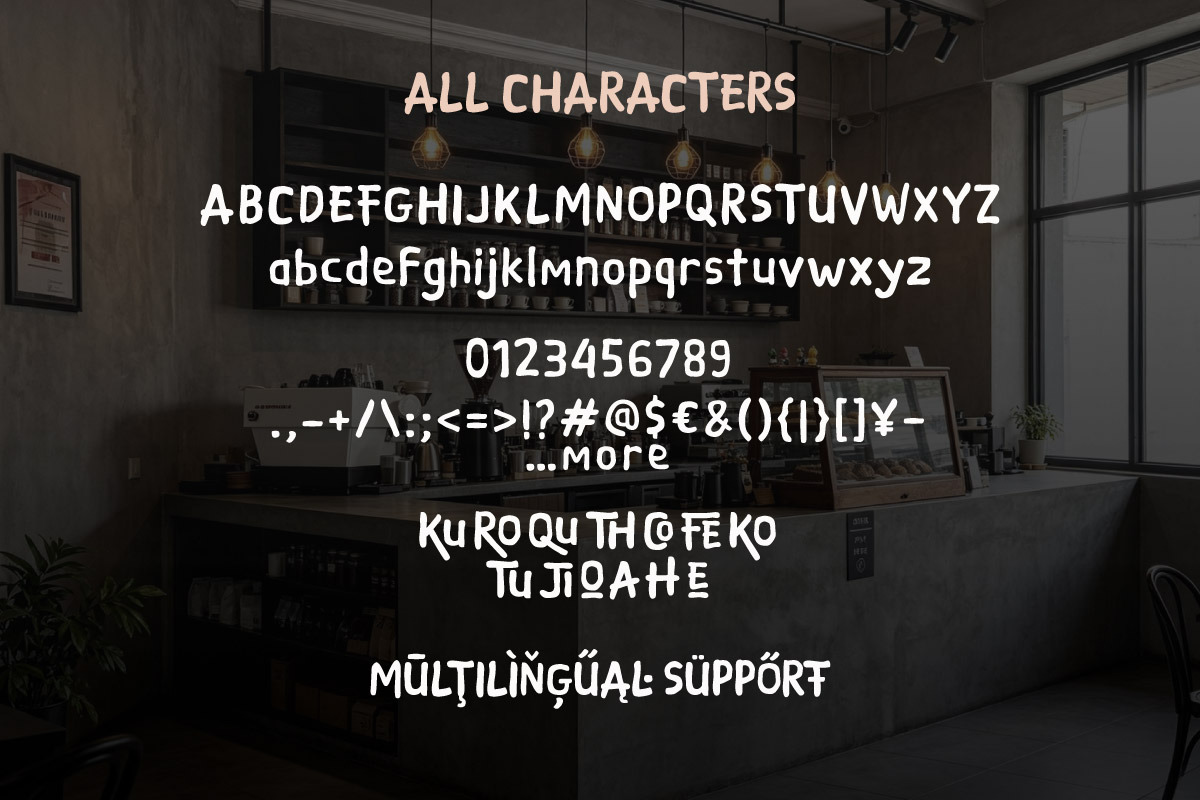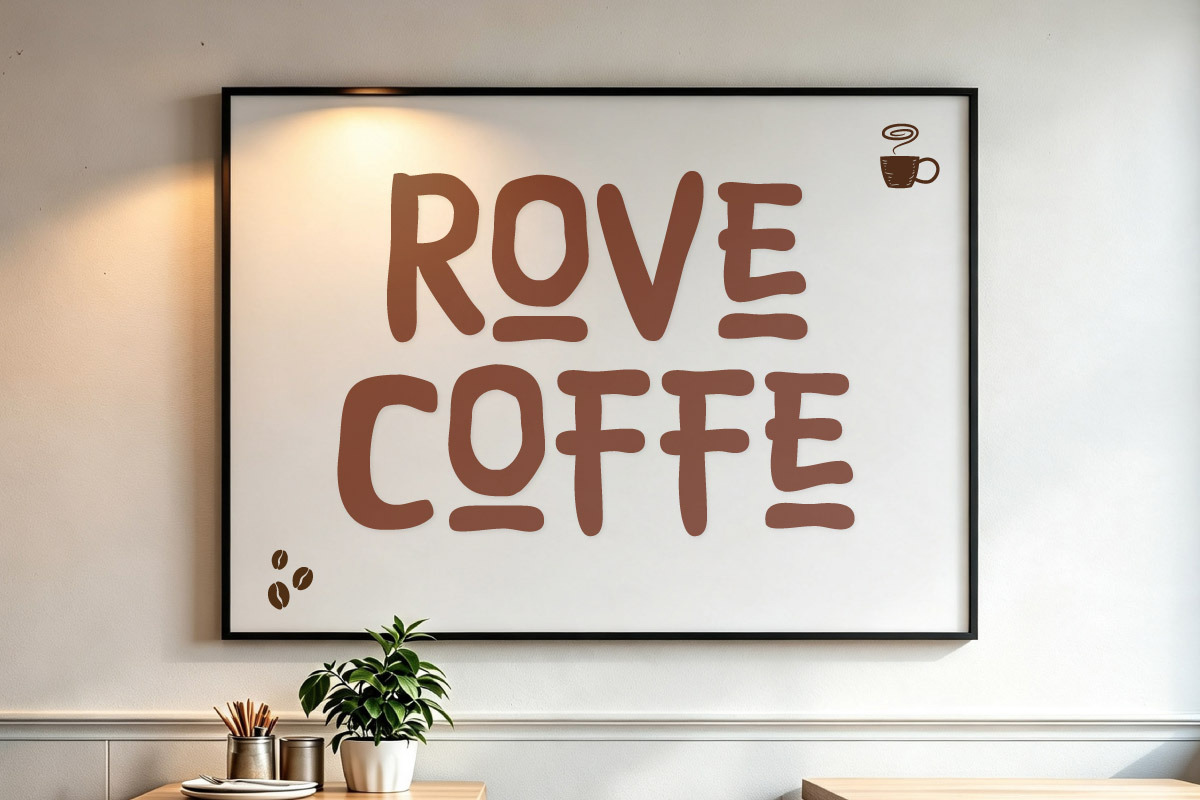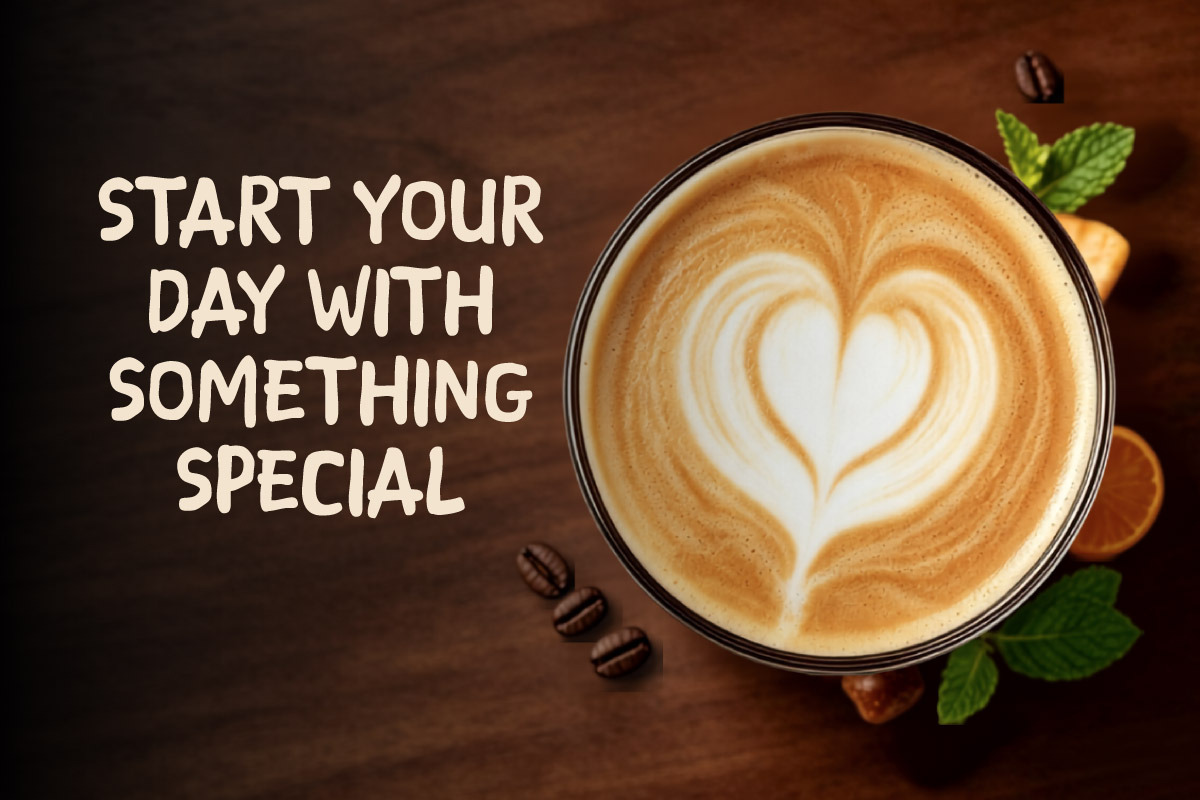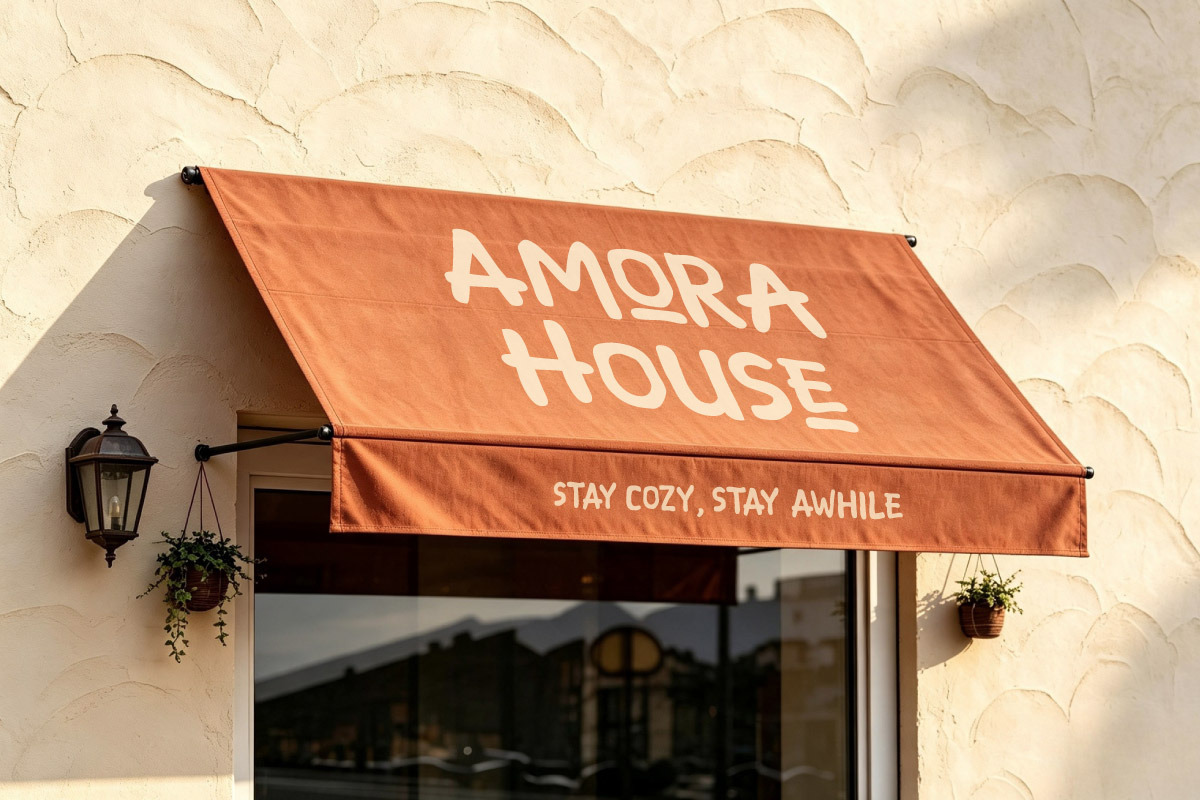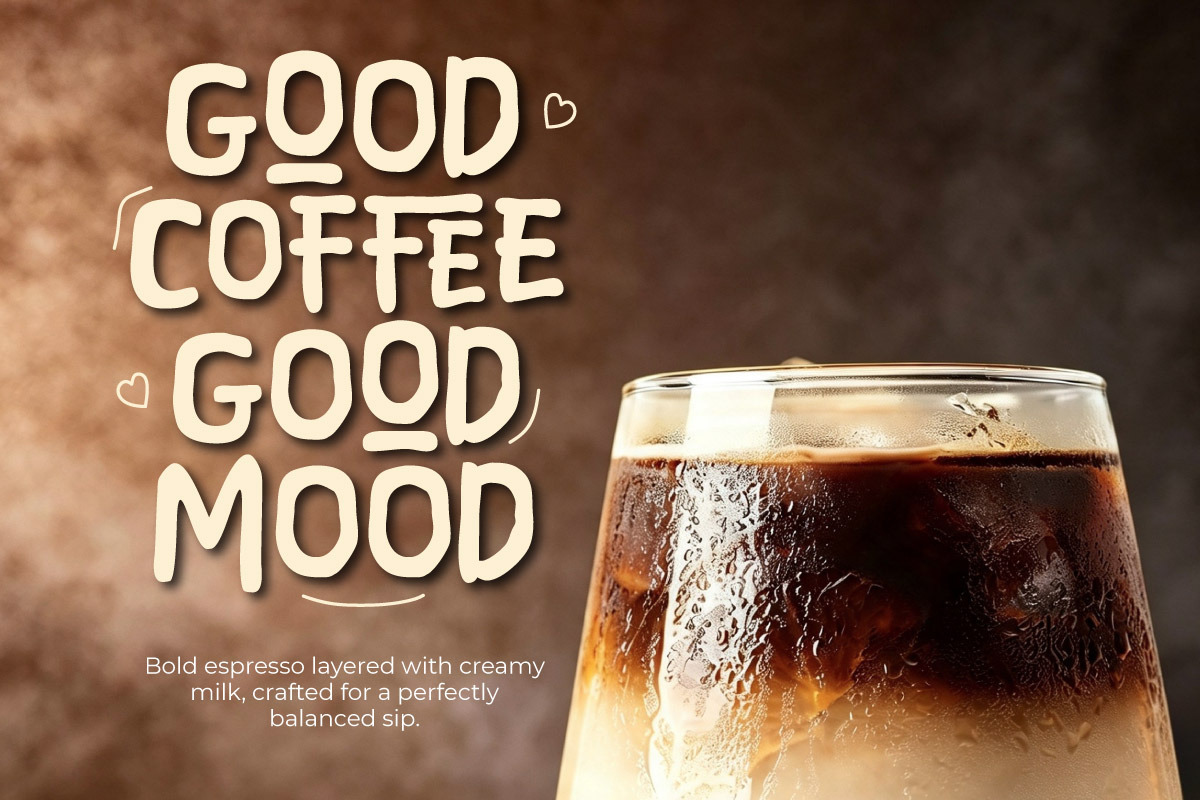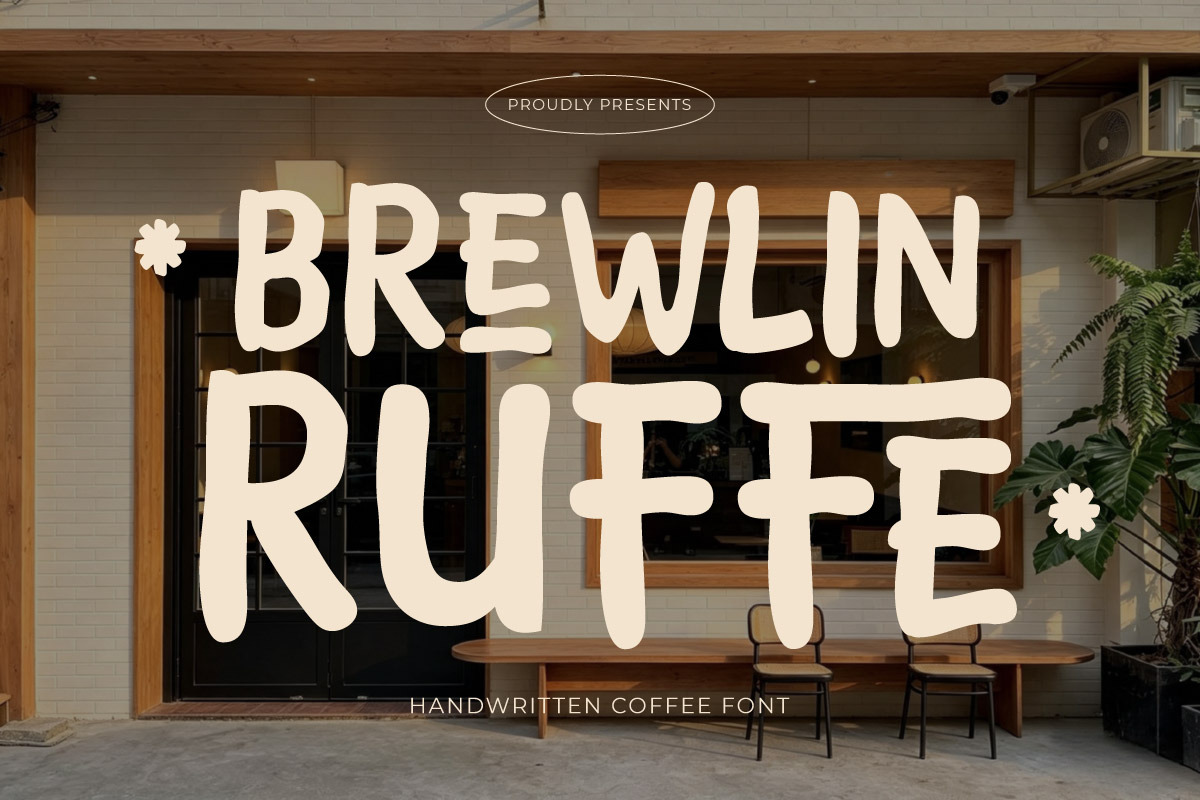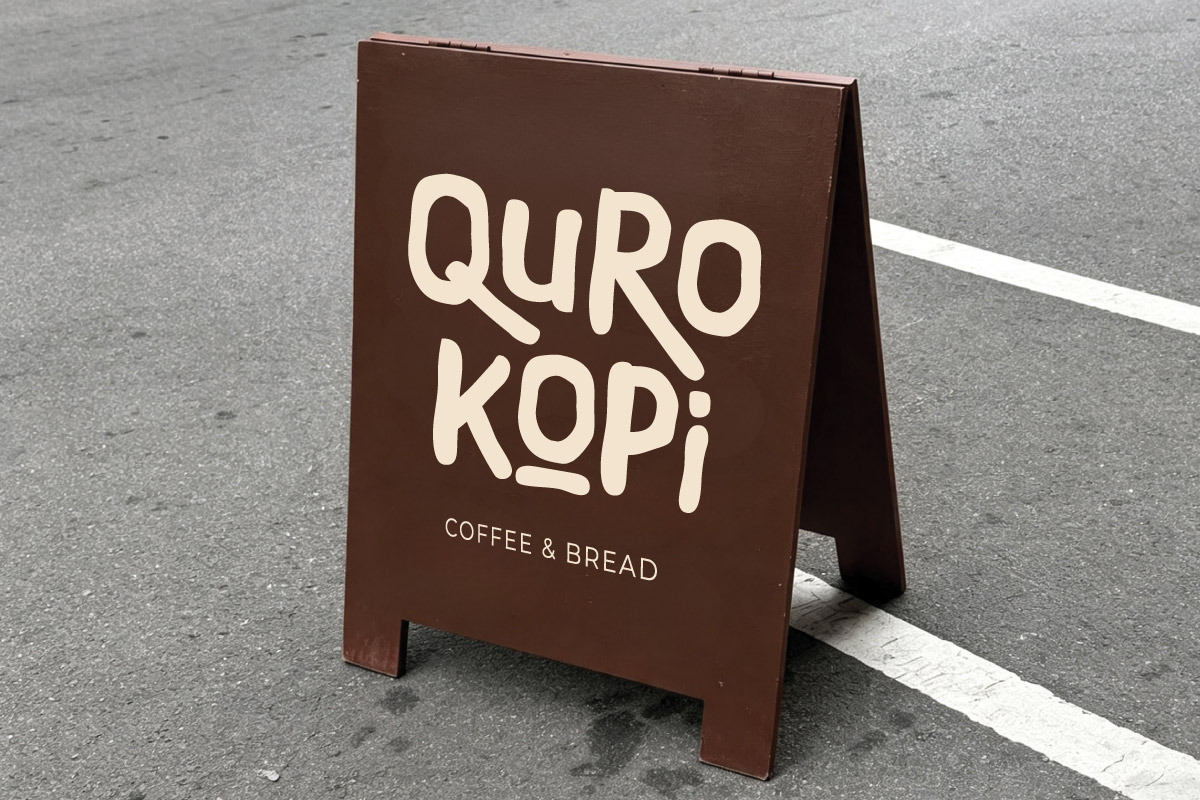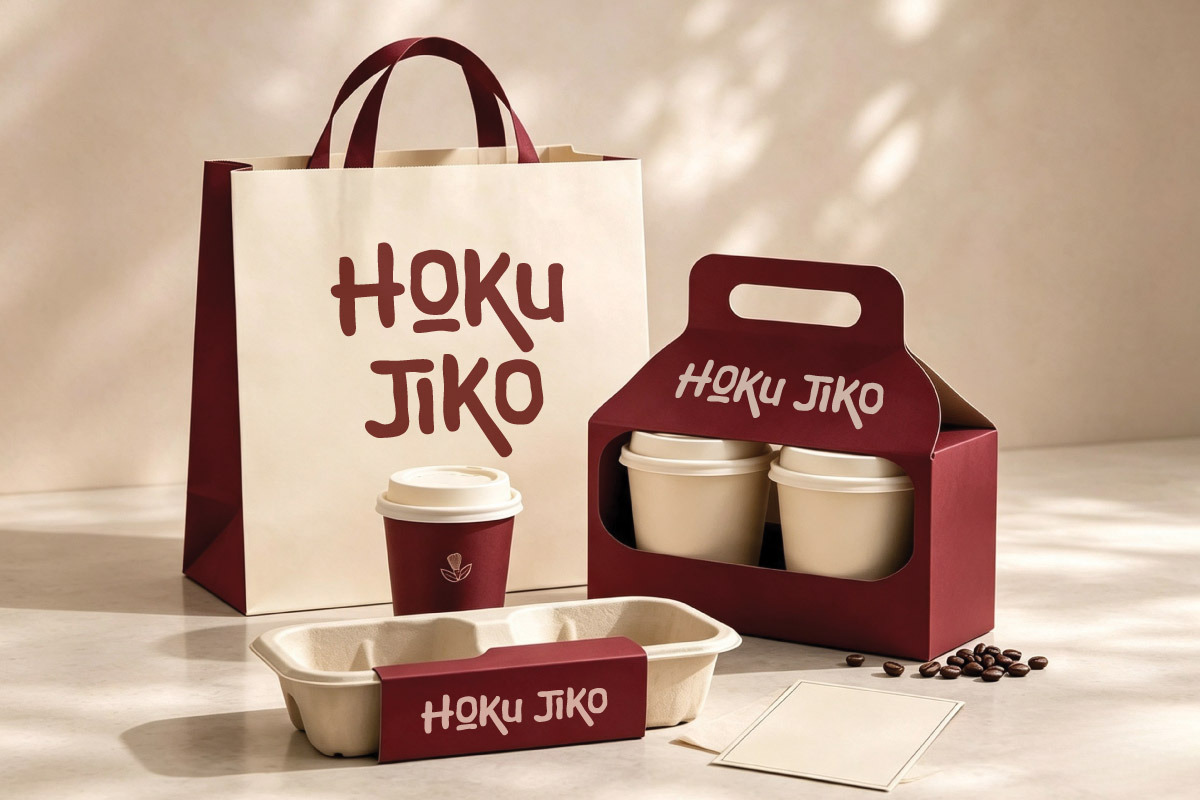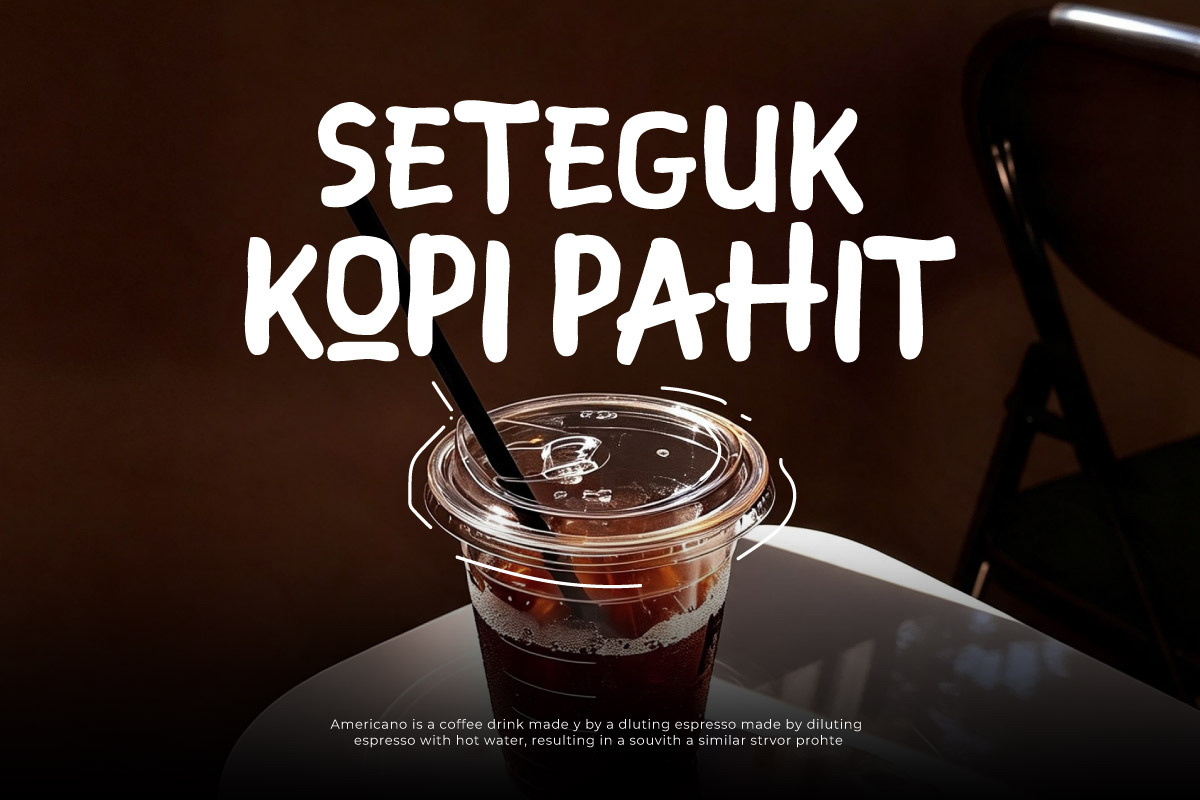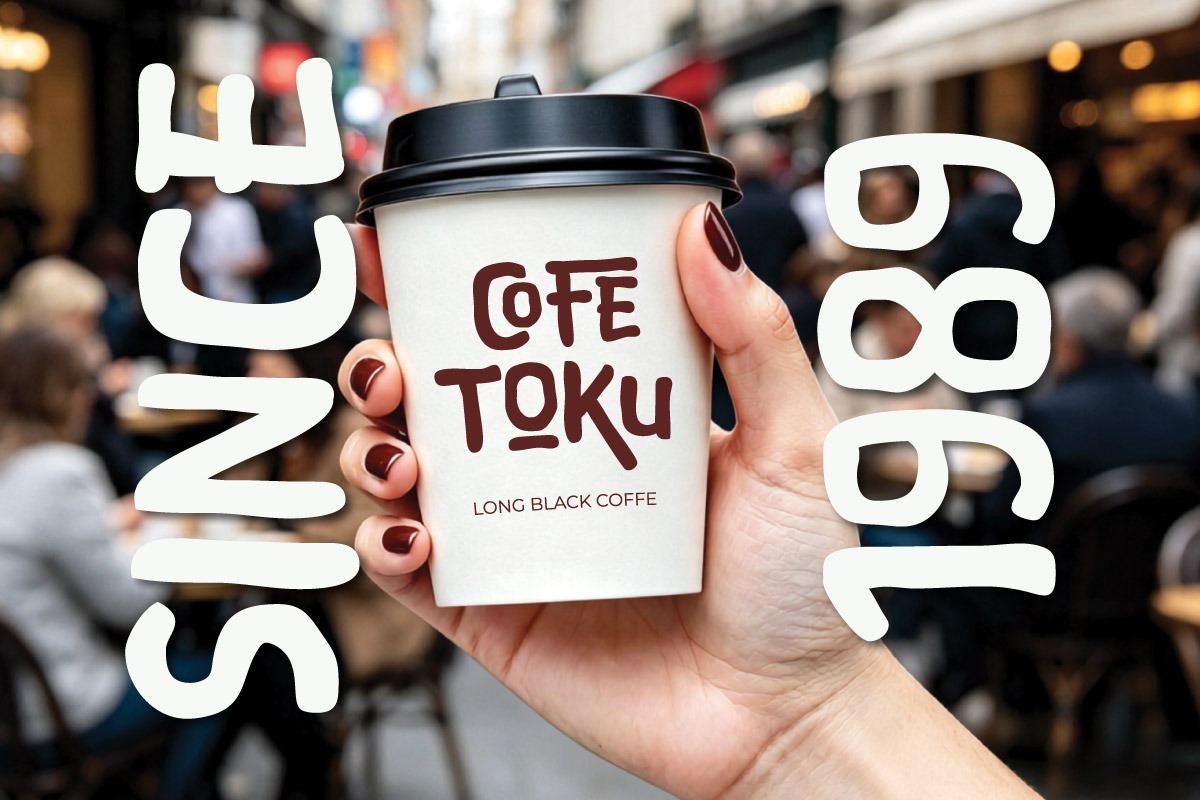
Brewlin Ruffe - Coffee Display Font
Brewlin Ruffe is a casual handwritten display font featuring a bold, organic, and slightly playful character. Designed to deliver a warm and cozy aesthetic, this typography brings an authentic handcrafted touch to deeply strengthen the visual identity of any culinary brand.
Highly versatile, this font is perfectly suited for coffee shop branding, artisanal product packaging, bakery labels, and local roastery menus. Beyond printed materials, its excellent legibility makes it an outstanding choice for digital graphic design, social media assets, and modern user interfaces (UI).
An essential pick for food business owners, designers, and creators aiming to instantly project a friendly and approachable vibe. Create an appetizing visual experience and elevate the overall appeal of your creative projects with the captivating charm of this typeface.
- Multilingual Support: Fully supports 85+ languages, including:
Afrikaans, Albanian, Asu, Basque, Bemba, Bena, Breton, Catalan, Chiga, Cornish, Croatian, Czech, Danish, Dutch, Embu, English, Esperanto, Estonian, Filipino, Finnish, French, Friulian, Galician, Gusii, Hungarian, Indonesian, Irish, Italian, Kabuverdianu, Kalenjin, Kamba, Kikuyu, Kinyarwanda, Latvian, Lithuanian, Lower Sorbian, Luo, Luxembourgish, Luyia, Machame, Makhuwa-Meetto, Makonde, Malagasy, Maltese, Manx, Meru, Morisyen, North Ndebele, Norwegian Bokmål, Norwegian Nynorsk, Nyankole, Oromo, Polish, Portuguese, Quechua, Romanian, Romansh, Rombo, Rundi, Rwa, Samburu, Sango, Sangu, Scottish Gaelic, Sena, Serbian, Shambala, Shona, Slovak, Slovenian, Soga, Somali, Spanish, Swahili, Swedish, Swiss German, Taita, Teso, Turkish, Upper Sorbian, Uzbek (Latin), Volapük, Vunjo, Walser, Zulu.